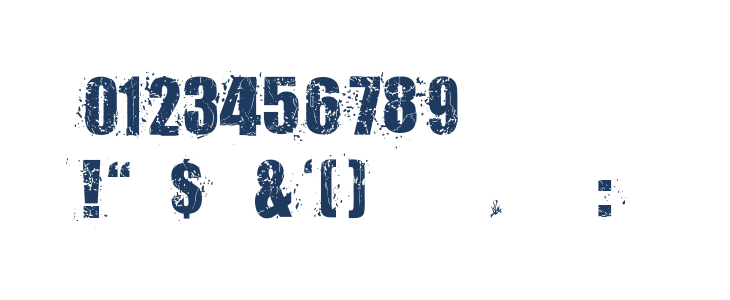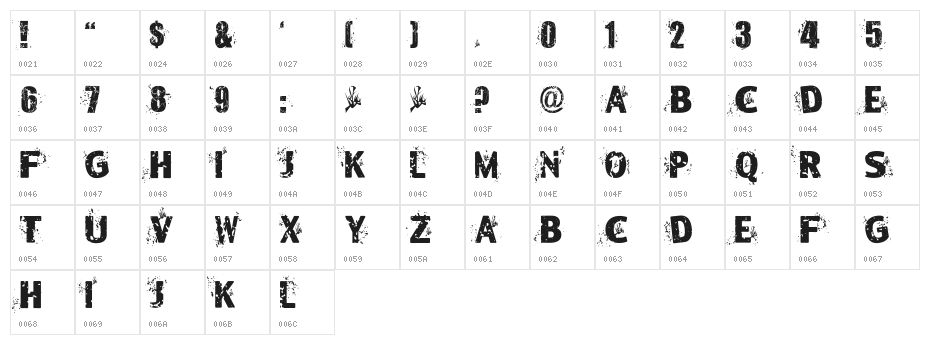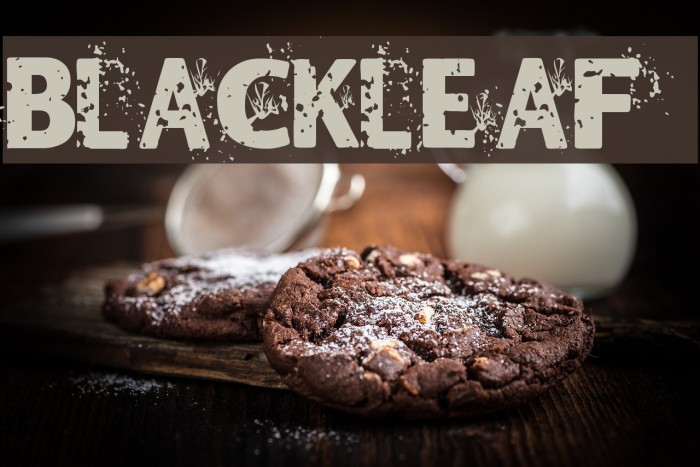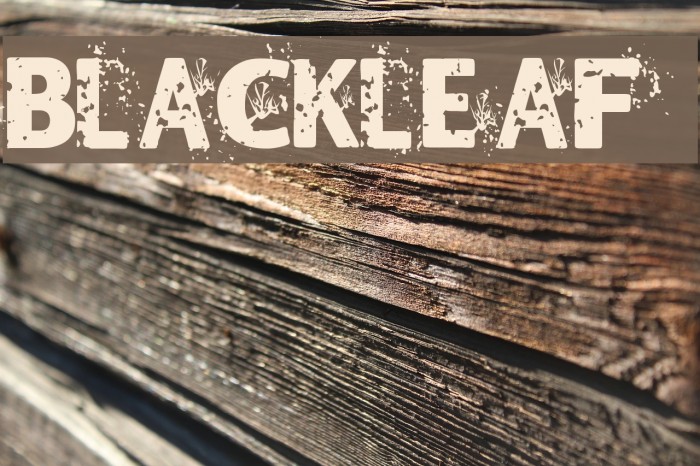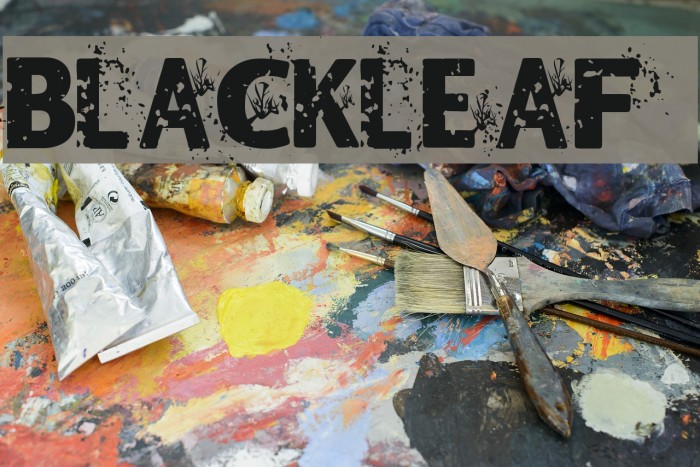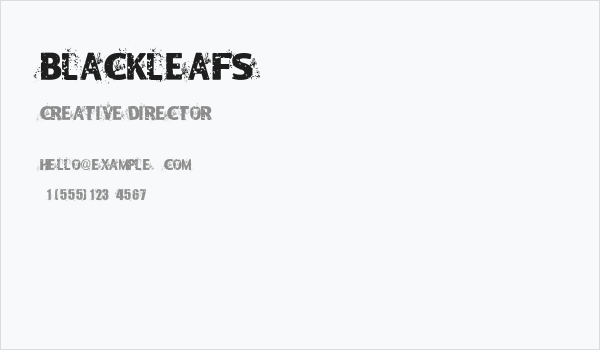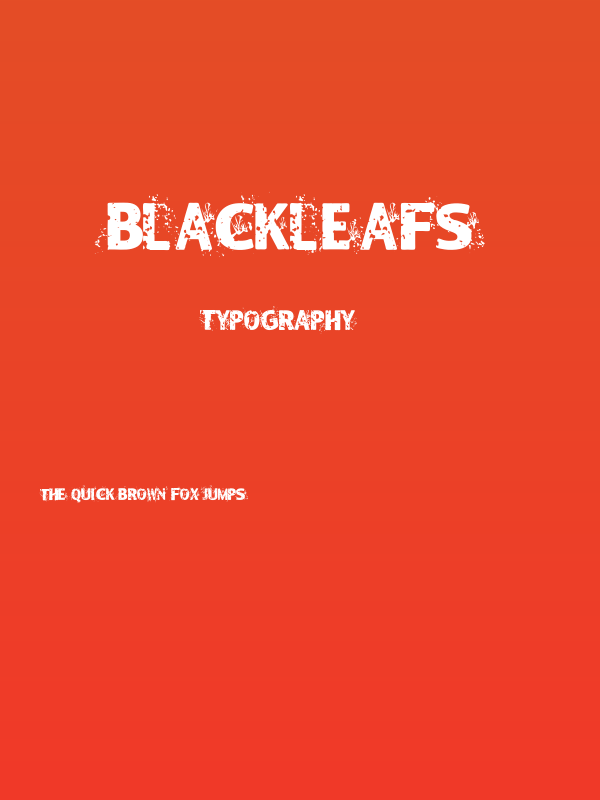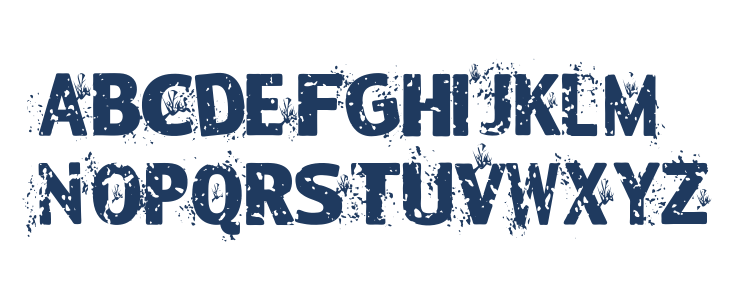
Blackleafs Font
Blackleafs Description
This font features a bold and distressed style, characterized by its rough, textured appearance that mimics a weathered or grunge effect. The uppercase and lowercase letters, along with numbers and special characters, are designed with irregular edges and splatters, giving it a rugged and edgy look. This style is reminiscent of urban street art or worn-out signage, making it ideal for projects that require a raw and impactful visual statement. The font's unique texture adds depth and interest, making it stand out in any design.
| Overall Style | Grunge, Urban, Edgy |
| Proposed Projects | Ideal for album covers, posters, streetwear branding, and edgy graphic designs. |